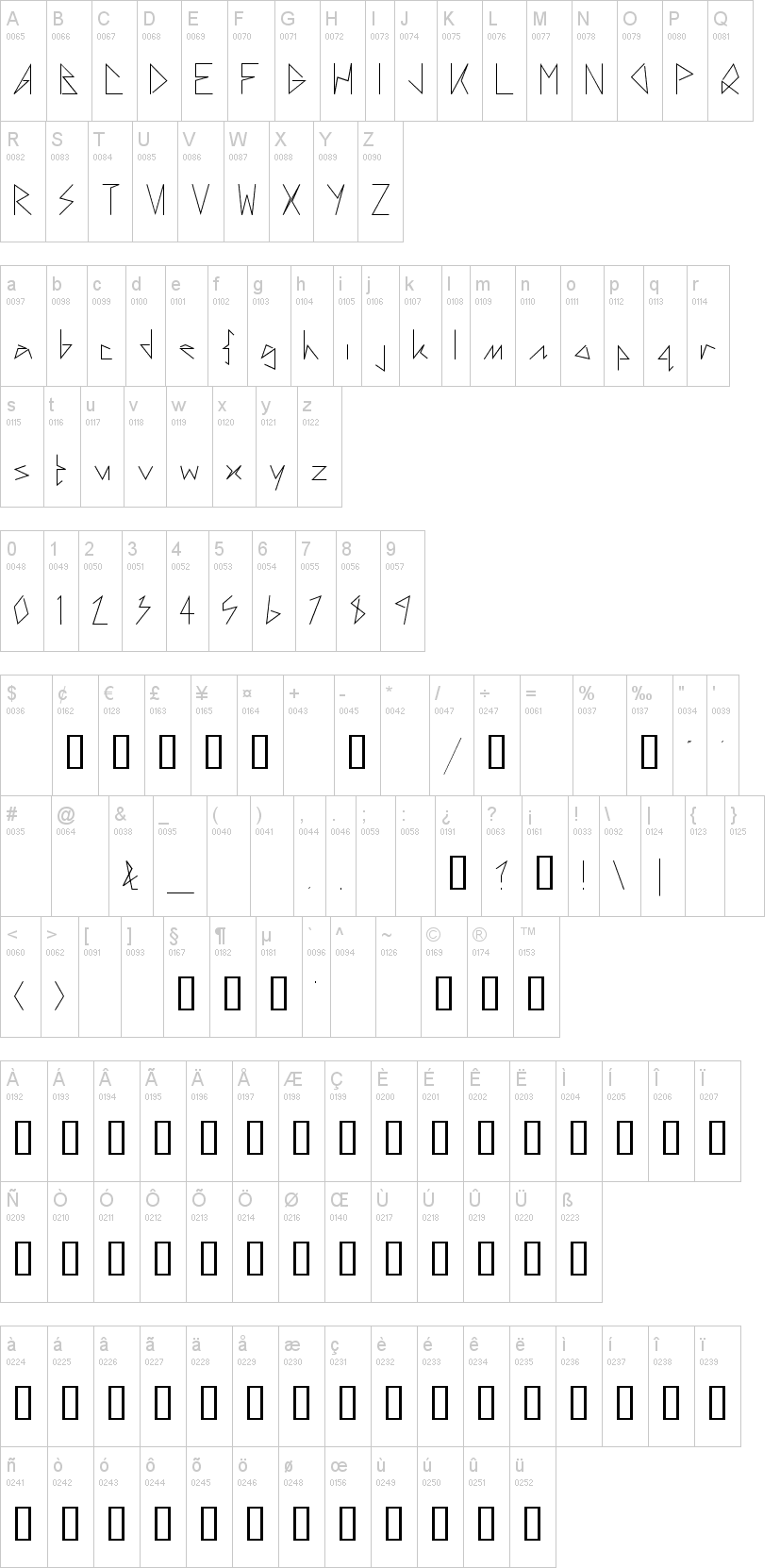
Шрифт One
Single stroke which suppose to be useful when writing in unnatural position.
An unnatural writing could be
- on hanging surface
- with handstand position
- with your head
- while tip-toeing at the edge of the universe
- if you cant actually write
- you don't wish to write
- during alien abduction
- as a ghost
etc
Single stroke which suppose to be useful when writing in unnatural position.
An unnatural writing could be
- on hanging surface
- with handstand position
- with your head
- while tip-toeing at the edge of the universe
- if you cant actually write
- you don't wish to write
- during alien abduction
- as a ghost
etc